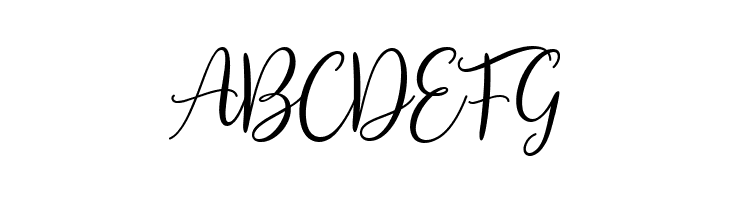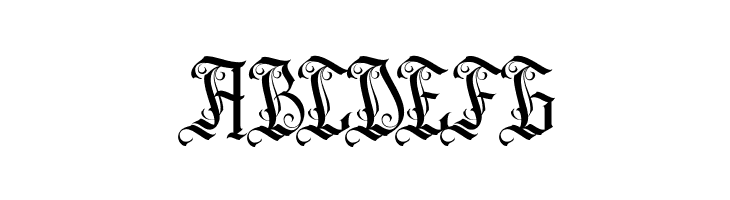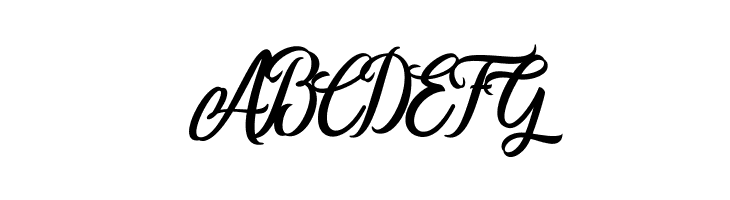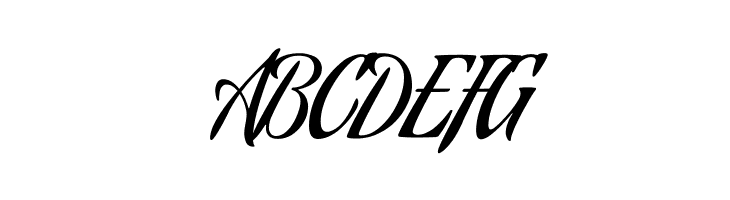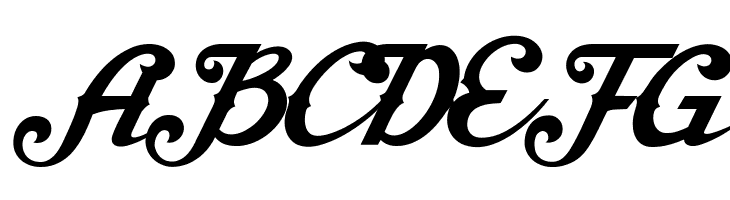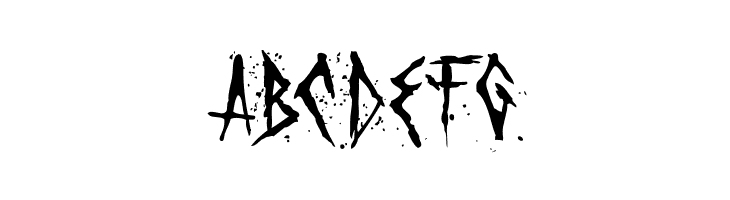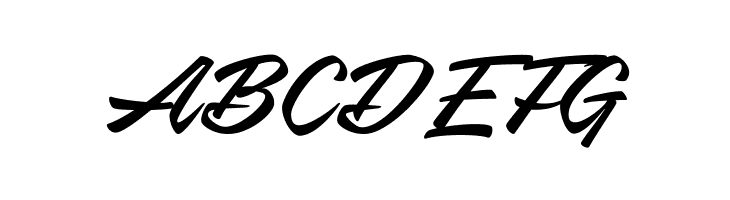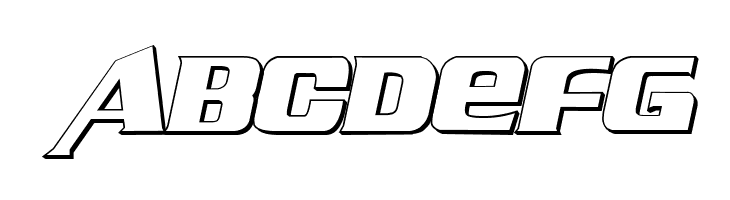
• Agreable-Script
A flowing, elegant script font with ornate uppercase and harmonious lowercase letters.
• Agresivefont
• Aguafina Script Regular
An elegant and flowing script font with bold, cursive letterforms.
• AguafinaScript-Regular
An elegant script font with fluid, cursive strokes and a sophisticated appearance.
• AihetScriptPersonalUseOnly-Regu
An ornate and decorative blackletter-style font with intricate flourishes.
• Air Millhouse Outline
• AirplaneScript
A bold, cursive script font with elegant loops and a natural flow.
• Airways PERSONAL USE ONLY
A fluid and elegant script font with dynamic cursive letterforms.
• AishaScript
A bold, cursive font with decorative swirls and high contrast.